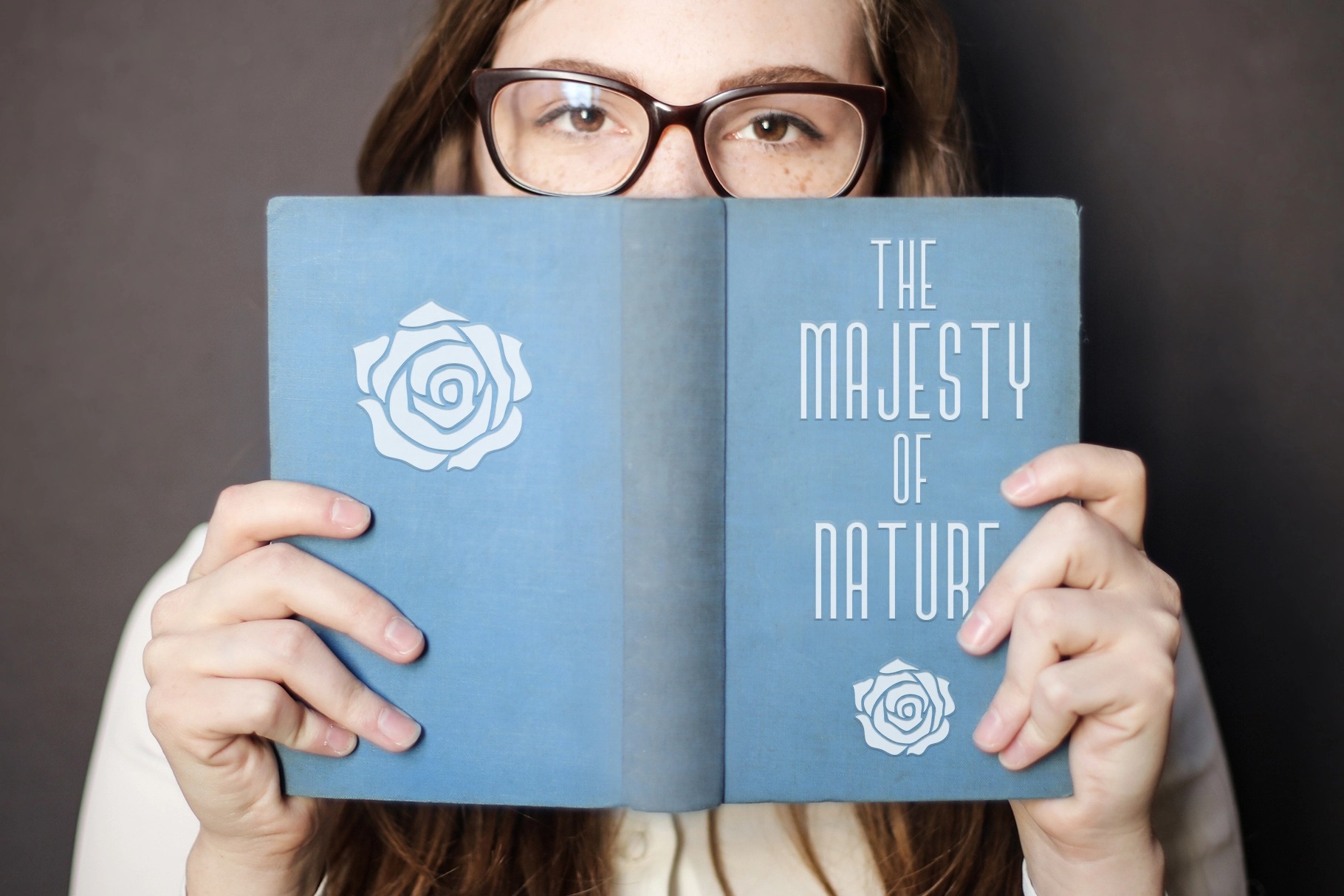
Sabana Font
Sabana Sans Serif Font
This is an ultramodern, ultra compact sans serif typeface. It was designed for maximum compression, allowing you to fit more words in a line than techno typefaces normally allow. Whether you’re looking for fonts for Instagram or calligraphy scripts for DIY projects, this font will turn any creative idea into a true piece of art!
Masterfully designed to become a true favorite, this font has the potential to bring each of your creative ideas to the highest level!